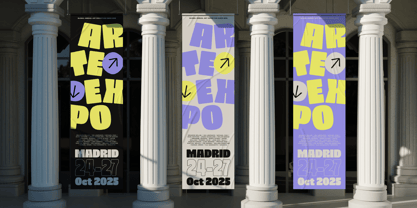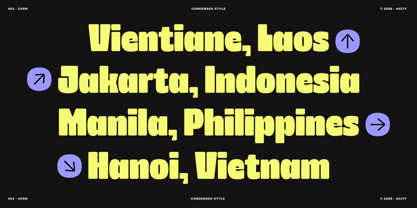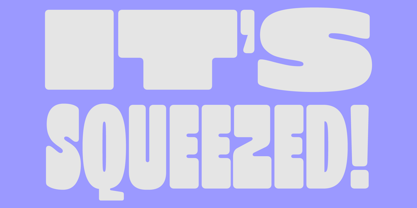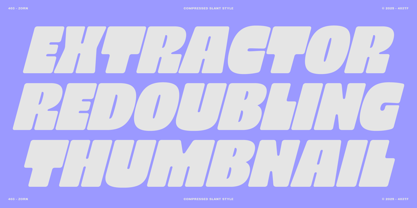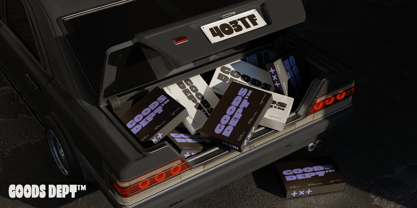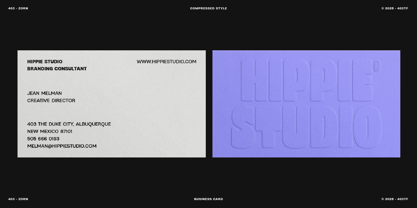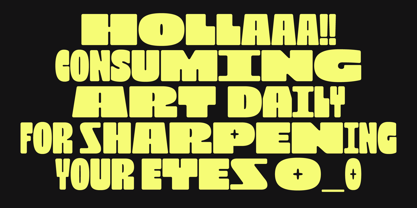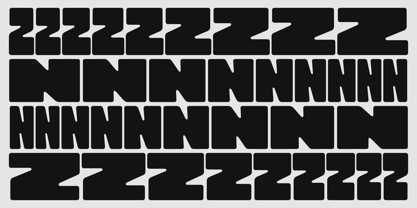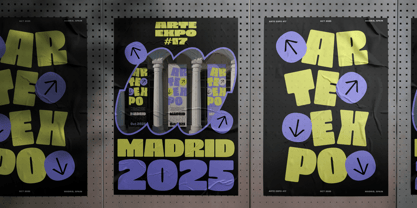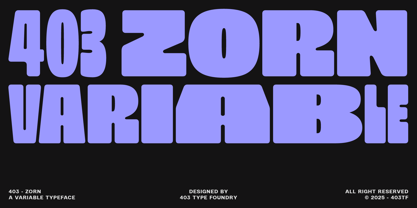
403 Zorn
by 403TF
The 403 Zorn Font Family was designed by Umar Al Farouq, Jodi El Ghazi, Febri Riansah and published by 403TF. 403 Zorn contains 18 styles and family package options.
403 Zorn is a bold and flexible display typeface made to grab attention. With 18 styles—both regular and slanted—it gives you full creative control to design loud, clear, and unforgettable visuals. Whether you're working on streetwear, posters, or bold branding, Zorn helps your message stand out with strong style and personality.
This font is built on a fun and fearless design idea. Its thick, blocky letters are shaped to feel bold and playful at the same time. The smooth corners give it a friendly look, while the wide and heavy forms demand attention. Every letter is made with care to feel fresh and different—but still easy to read. Zorn isn't about fitting in—it’s about standing out.
403 Zorn is perfect for creatives who want their work to make a statement. It’s ideal for graphic designers, streetwear brands, music posters, bold websites, and anyone who wants their type to speak loud and clear. It works best in big sizes where its bold style really shines.
Features:
• Variable font with 18 styles (regular and slanted)
• Super bold weight for high impact
• Geometric, block-style letters with a custom feel
• Rounded corners for a softer, modern look
• Designed for strong display use (posters, logos, headlines)
• Works great in print and digital projects
• Unique letter shapes for a one-of-a-kind look
• Best for streetwear, branding, editorial, and digital design